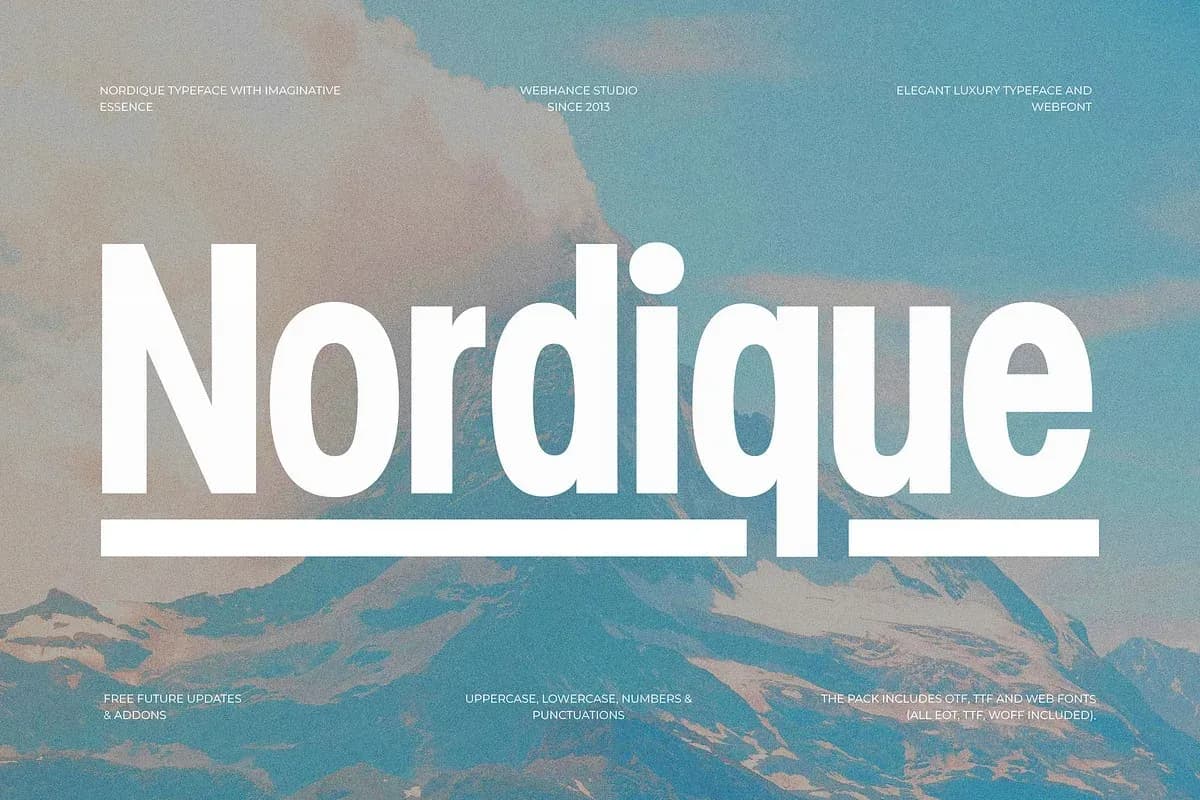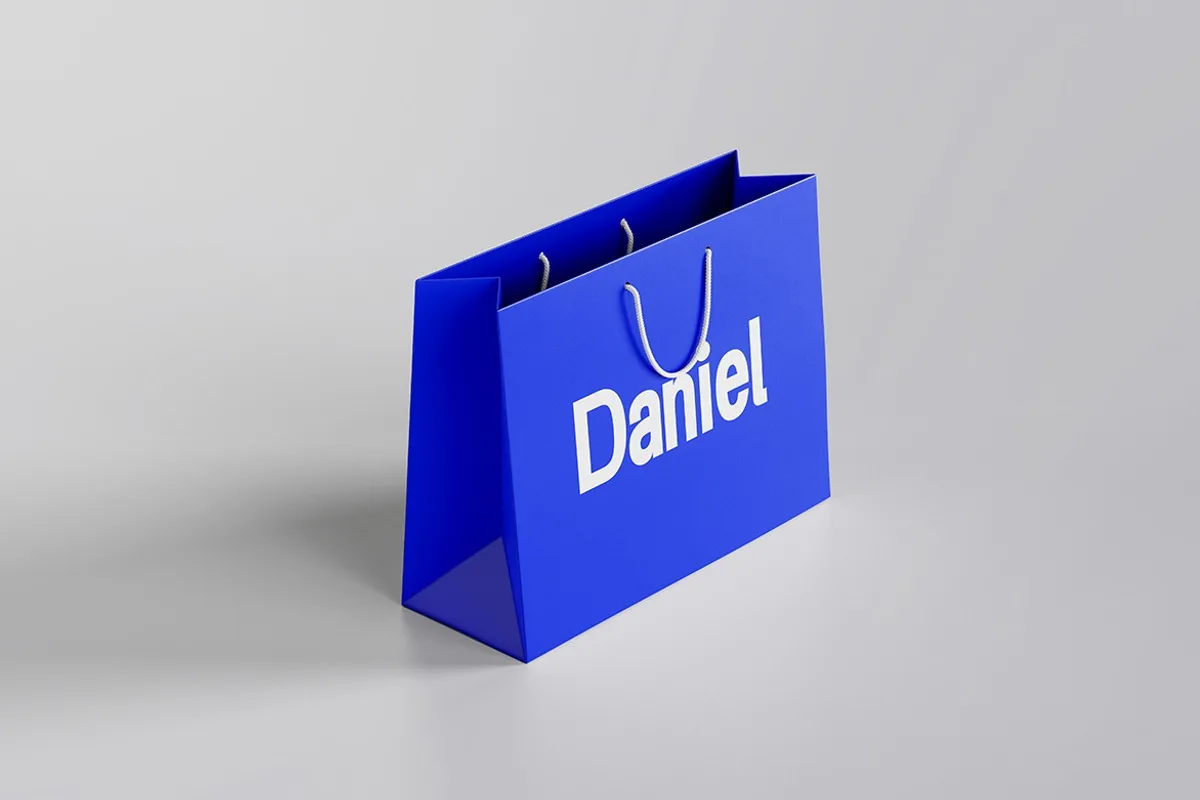
Nordique Sans
Meet Nordique Sans, a modern sans-serif typeface crafted to combine simplicity and elegance. This font is currently available in one weight (with more styles coming soon!) and is ideal for any contemporary design project, offering both excellent readability and a sophisticated, polished look. Nordique Sans includes full uppercase, lowercase, numbers, and punctuation, ensuring all your basic needs are covered. For seamless integration, the package provides multiple formats, including PostScript, TrueType, and Web Fonts (EOT, OTF, TTF, WOFF).